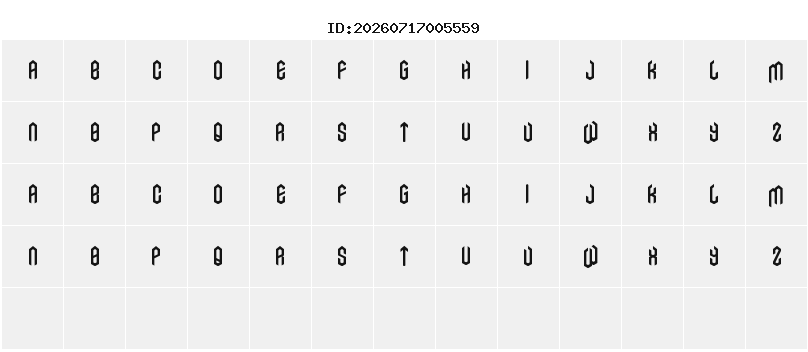
• Font Name: AXE
• Font ID: AXE:Version 1.00
• Full Font Name: AXE
• Version: Version 1.00 February 21, 2013, initial release
• PostScript Name: AXE
About AXE.ttf
AXE.ttf is a modern, elegant sans-serif font designed for ultimate readability and visual harmony. Perfect for branding, headlines, web design, and print materials.